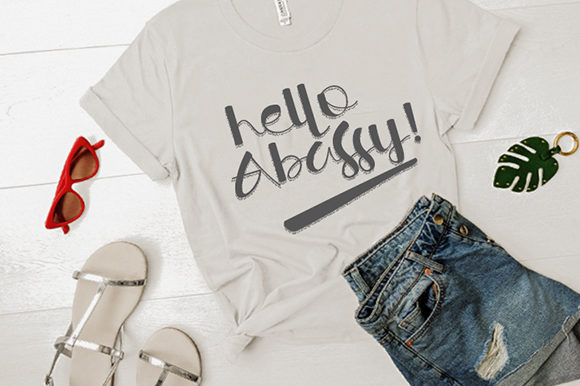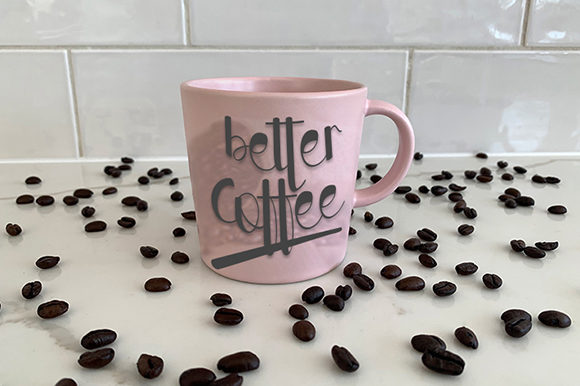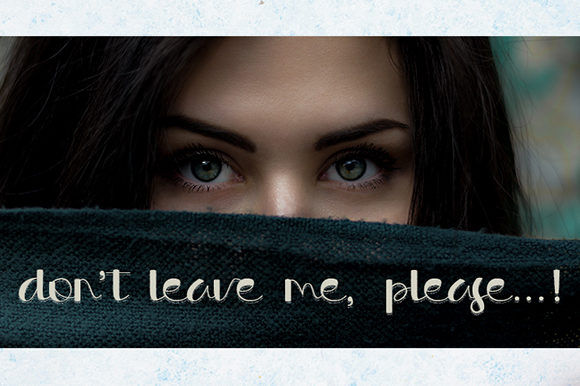
Southam Font
About Southam Font
Southam is a display font that is great for craft projects and branding! It will add a romantic touch to any crafting project.